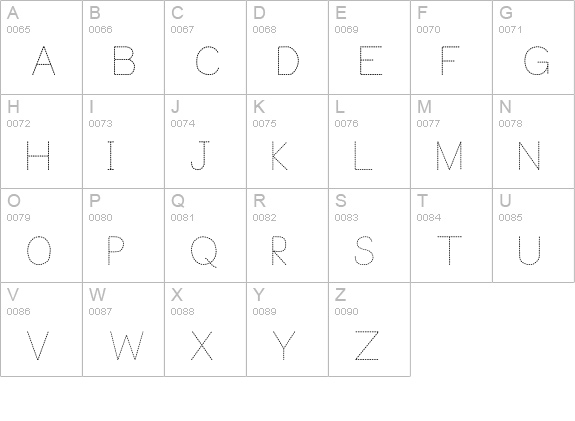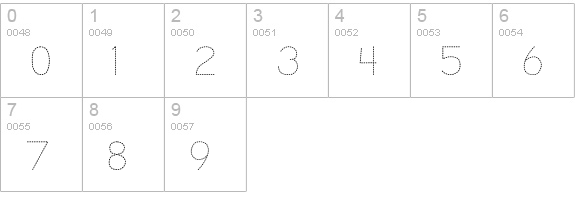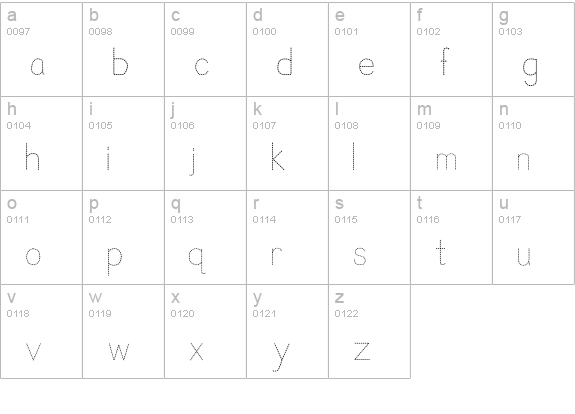
Trace Font for Kids Font Details
Introducing the delightful and captivating Trace Font for Kids! Designed with young learners in mind, this font is a perfect blend of fun and educational elements. With its unique and playful style, Trace Font for Kids is sure to engage and inspire children as they embark on their journey of literacy. Each letter of this font has been meticulously crafted to help children develop their handwriting skills. The distinct trace lines provide a helpful guide for little hands, making it easy to trace each letter with precision and confidence. This font is ideal for creating worksheets, educational materials, and interactive games that promote letter recognition and penmanship. But the best part? Trace Font for Kids is absolutely free! That's right, this incredible font is freely available to download at FontsMarket.com. We believe that access to quality educational resources should be accessible to all, and that's why we're thrilled to offer this font at no cost. Now, parents, teachers, and educators can easily incorporate this font into their lesson plans and materials, without breaking the bank. Not only is this font perfect for educational purposes, but its vibrant and playful design also makes it ideal for creating eye-catching headlines, posters, and children's book covers. Whether you're designing a school newsletter or adding a touch of whimsy to a birthday invitation, Trace Font for Kids is the perfect choice to bring your creative projects to life. So why wait? Download Trace Font for Kids today at FontsMarket.com and unlock a world of creative possibilities. With its charming style and free availability, this font is a must-have for anyone looking to inspire and engage young learners. Let their imaginations soar as they trace their way to literacy success with the delightful Trace Font for Kids!